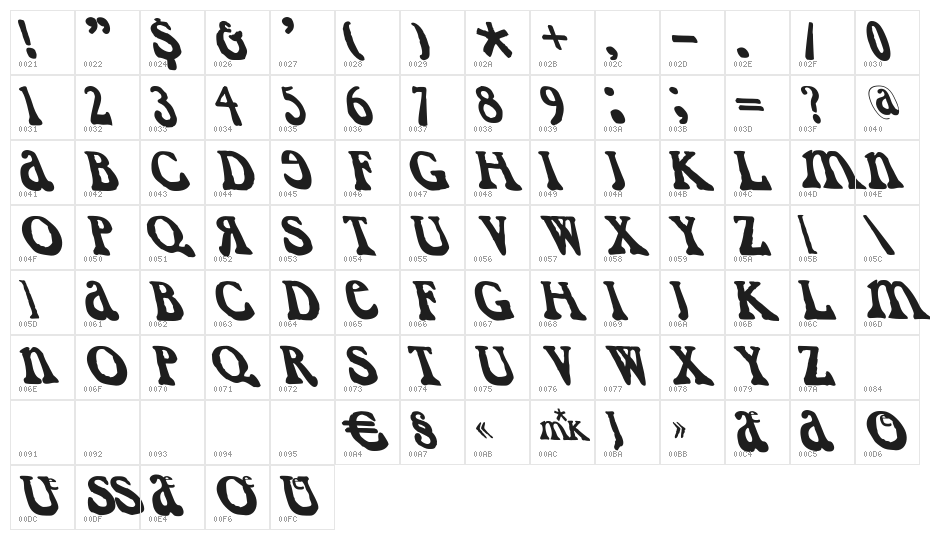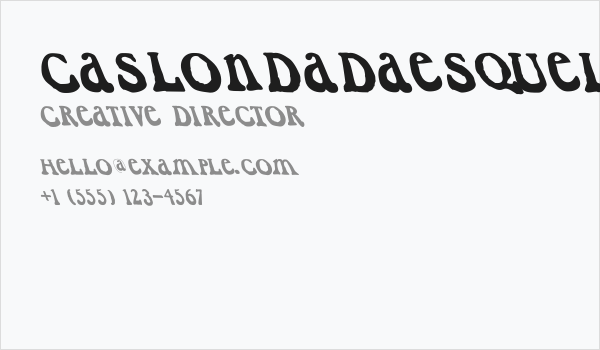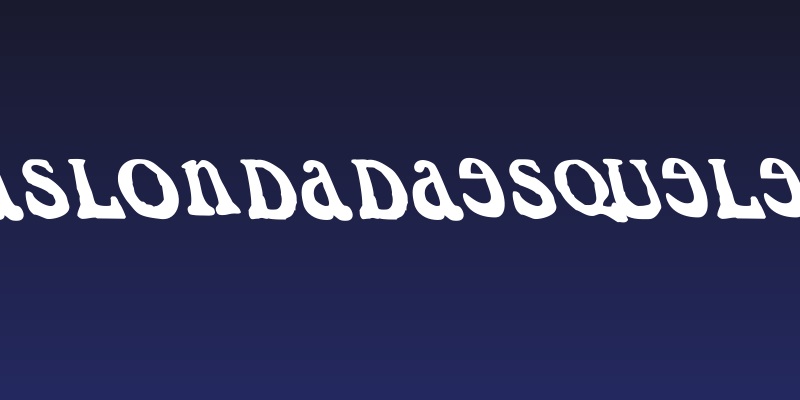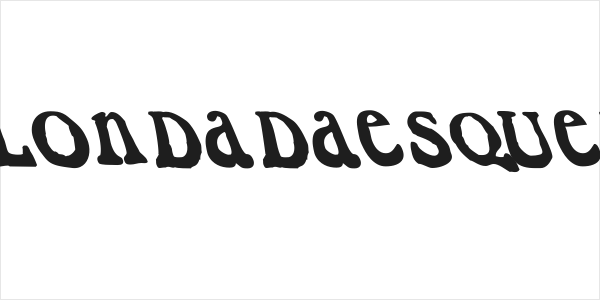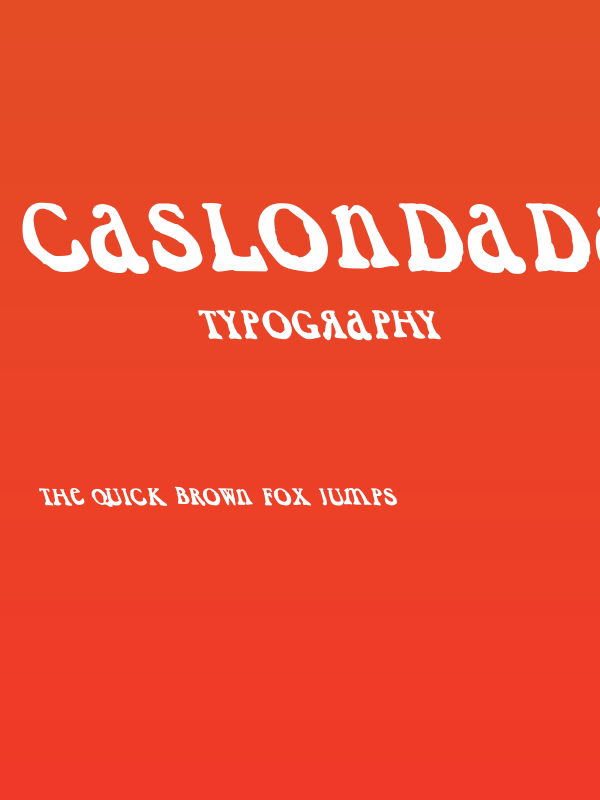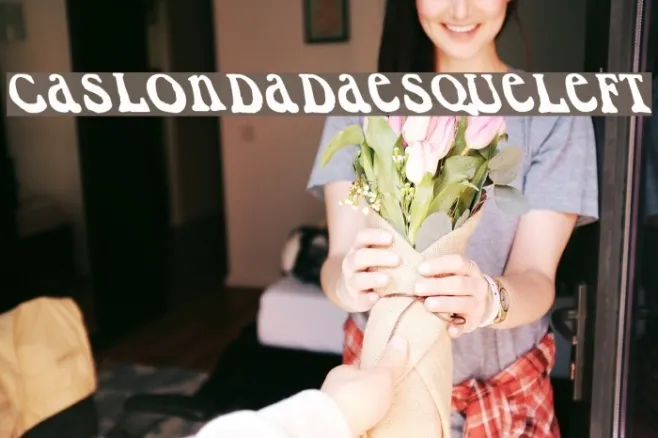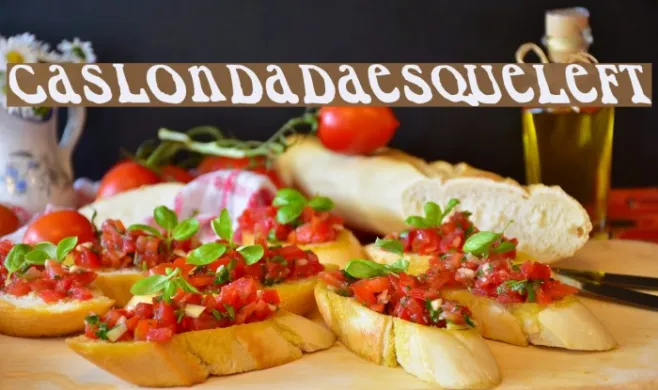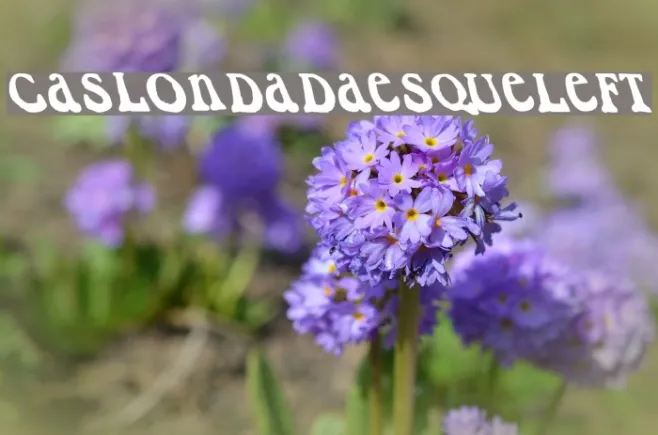
CaslonDadaesqueLeft Font
CaslonDadaesqueLeft Description
This font exhibits a playful and artistic style, characterized by its irregular and whimsical letterforms. The strokes are bold and uneven, giving it a hand-drawn appearance that evokes a sense of creativity and spontaneity. The characters have a unique, almost surreal quality, with exaggerated curves and angles that make each letter stand out. This font is reminiscent of Dadaist art, with its unconventional and experimental design. The numbers and special characters maintain the same quirky aesthetic, ensuring a cohesive look across all elements.
| Proposed Projects | Ideal for artistic projects, creative posters, album covers, and any design requiring a whimsical touch. |